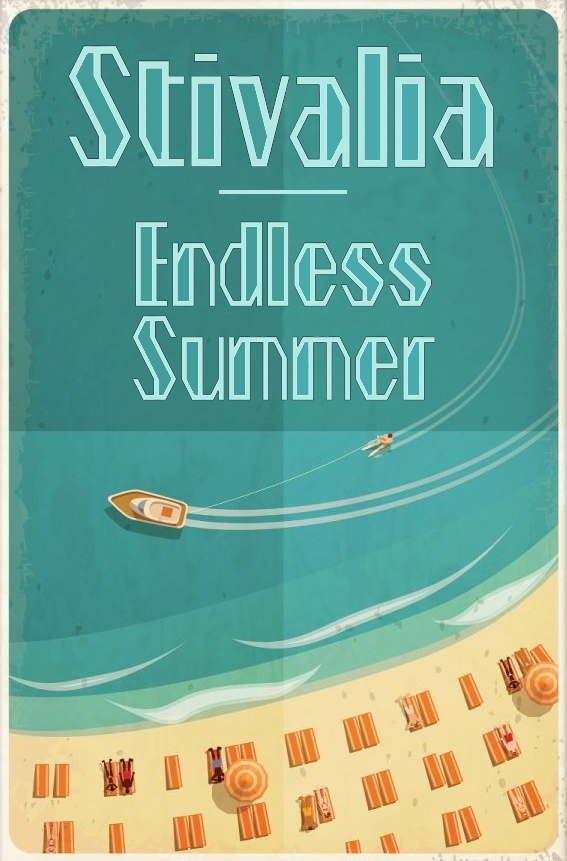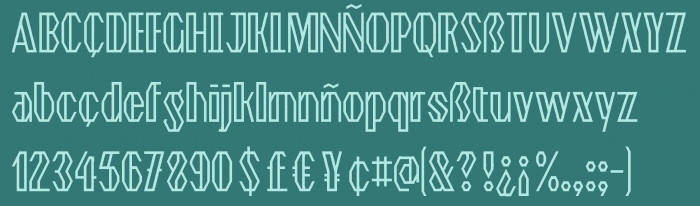
ztivalia eYe/FS
by elmoyenique
A simple font for these beautiful Summer Days.
Beautiful. 10/10
What do you mean, “Summer”? It’s snowing over here! ;D
Great font. I like how you’ve implied a weight contrast, and blatantly unrounded each letter.
@elmoyenique - Wonderful design.  :^)
@TCM Elmoyenique (and I) lives on the Northern Hemisphere…
great angular & art deco design from one of the fontstruct elite, well done!
I know, I know.